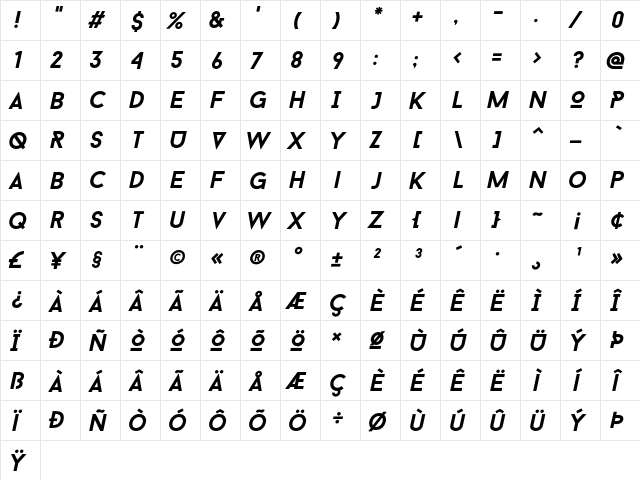
Baron Neue Bold Italic
| Foundry | Frank Hemmekam |
| Designer | Frank Hemmekam |
Design Context for Baron Neue Typeface
Baron Neue is a composed and adaptable typeface that performs quietly and consistently across a wide range of design contexts. Its italic angle brings a sense of urgency and motion to the letterforms. The heavy weight commands attention and anchors typographic hierarchies.
Pro Tip: Try Baron Neue for annotation and caption copy alongside an upright companion — the contrast in angle creates a dynamic but ordered typographic system.